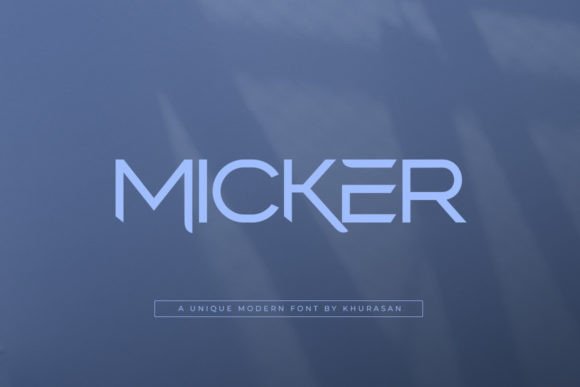
Embark on a typographic journey with Micker Font, a sans-serif masterpiece that exudes cleanliness, uniqueness, and a dash of charming modernity. Its smooth, light execution renders every letter with sleek elegance, a touch of femininity, and an aura of sophistication. This font is a dream come true for designers seeking to create captivating girly branding designs.
Micker Font's versatility knows no bounds, effortlessly adapting to a myriad of projects, from delicate branding designs for fashion boutiques to whimsical invitations for special occasions. Witness the transformation as Micker Font elevates your creative concepts, making them radiate with individuality and allure.
Unleash your imagination and let Micker Font orchestrate a symphony of visual delight. Adorn your designs with captivating logos, elegant brochures, and enchanting social media graphics that leave an indelible mark on your audience. Let Micker Font be your muse, your creative partner, and the key to unlocking typographic brilliance.
Embrace Micker Font's captivating essence and watch your designs flourish with elegance and charm. Its delicate curves and refined lines dance harmoniously, creating a visual spectacle that captivates and enchants. Allow Micker Font to serenade your creative endeavors and transform them into masterpieces of visual artistry.
Welcome Micker Font into your design repertoire and embark on a typographic odyssey where creativity reigns supreme. Let its timeless beauty elevate your projects to new heights, leaving a lasting impression on all who encounter your designs. Micker Font is not just a font; it's an experience, an expression of your artistic vision, and a pathway to typographic greatness.